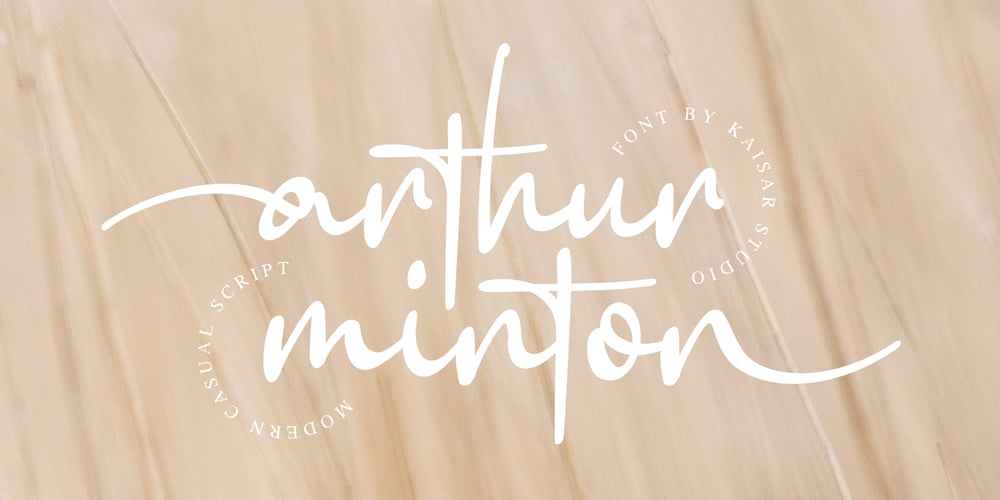
Arthur Minton Font Family was designed by Andi Kaisar and published by Violatype. Arthur Minton contains 1 styles and family package options. Introducing “Arthur Minton” is a type of handwriting font that has many tails that you can use to complete your design.Arthur Minton font is written with hand strokes, resulting in a natural shape.This font is very suitable for many designs, such as logos, branding, magazine covers and others.